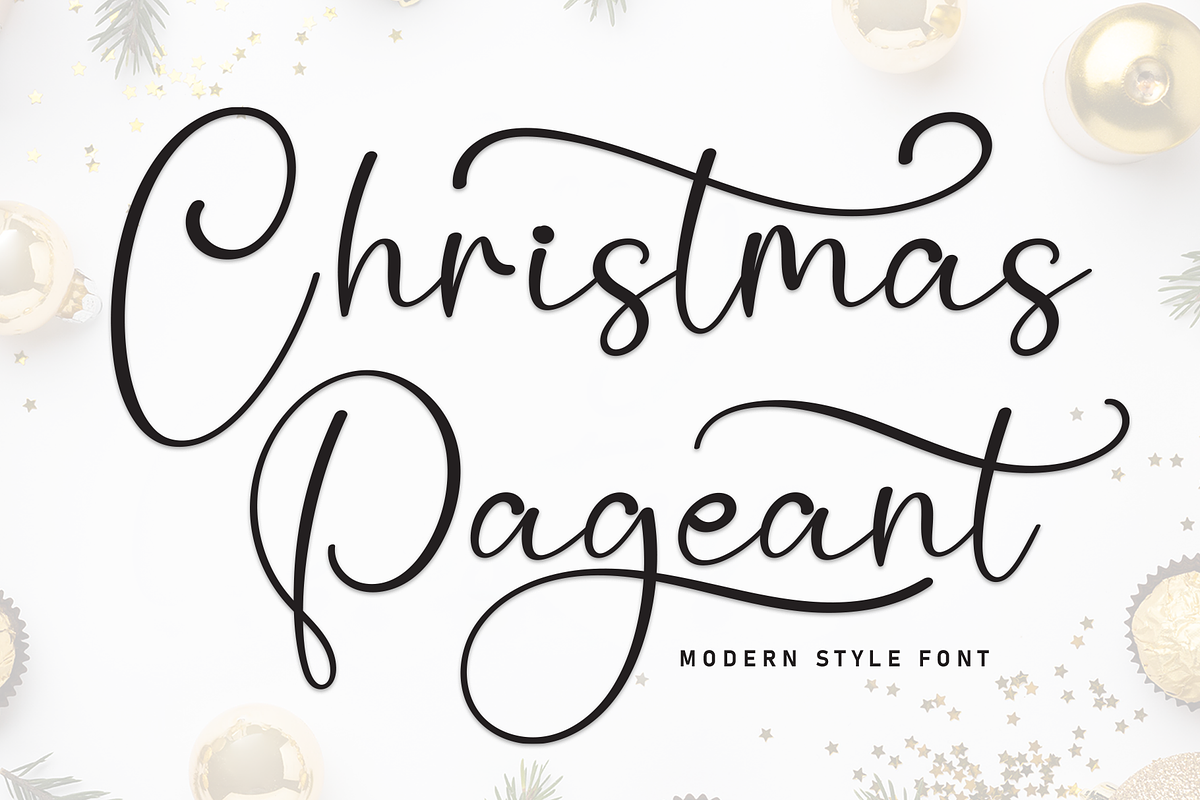
Christmas Pageant Script Font Free Download
Christmas Pageant Script Font Free Download is a festive and elegant handwritten typeface designed to capture the warmth and joy of the holiday season. With its graceful curves, flowing strokes, and decorative flair, this font is perfect for Christmas cards, seasonal invitations, holiday merch, and festive branding projects.
Whether you're creating cozy winter greetings or designing magical holiday promotions, Christmas Pageant Script Font Free Download adds a classic and heartfelt charm to your work. Its calligraphic style brings a sense of tradition, while still feeling fresh and joyful—ideal for both personal and professional designs.